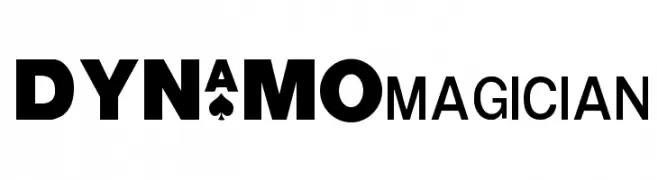
( dascatopia.daportfolio.com )
Bold, geometric sans-serif with high contrast and clear legibility.
( Font by Jonathan Harris - www.tattoowoo.com )
Intricate tribal dragon designs with bold lines and dynamic poses.
( Fonts by weknow - Wino S Kadir )
A modern, geometric font with consistent stroke width and clean design.
( DYNAMO MAGICIAN )
Bold, geometric font with thematic symbols and strong visual impact.
( Fonts by Kevin Christopher - www.kcfonts.com )
A distressed, grungy font with rough, textured edges and a chaotic appearance.
( Fonts by www.typedepot.com )
A playful, dotted outline font with a hand-drawn, lively style.
( Fonts by Mohammed Rahman )
A bold, decorative typeface with a vintage Western flair.
( Fonts by Mohammed Rahman )
A bold, italicized font with a dynamic and energetic style.
( Fonts by Mohammed Rahman )
A bold, geometric sans-serif font with a strong, block-like appearance.
( Fonts by Mohammed Rahman )
A bold, modern font with geometric shapes and consistent stroke width.
( Font by Jayvee D. Enaguas - grandchaos9000.deviantart.com )
A bold and assertive font with thick strokes and high legibility.
( Font by Jayvee D. Enaguas - grandchaos9000.deviantart.com )
A bold, italic font with a dynamic and energetic style.
( Font by Jonathan Harris - www.tattoowoo.com )
A collection of intricate and decorative abstract alien symbols.
( Font by Jonathan Harris - www.tattoowoo.com )
A collection of tribal-style butterfly illustrations.
A bold, decorative Blackletter font with intricate, gothic-inspired details.
A bold, distressed font with a grunge, industrial aesthetic.
A bold, rounded font with a playful and whimsical style.
A geometric, squared font with a modern and minimalist design.
A bold, geometric font with diagonal lines and solid shapes, offering a modern and edgy look.
A bold, playful font with rounded edges and a geometric, modern style.
A bold, geometric font with a modern, industrial style.
A playful handwritten font with a casual and friendly style.
An ornate, decorative font with intricate garden-themed borders.
A playful, casual handwritten font with bold, irregular strokes.
A decorative font with intricate serifs and high contrast, blending modern and vintage styles.